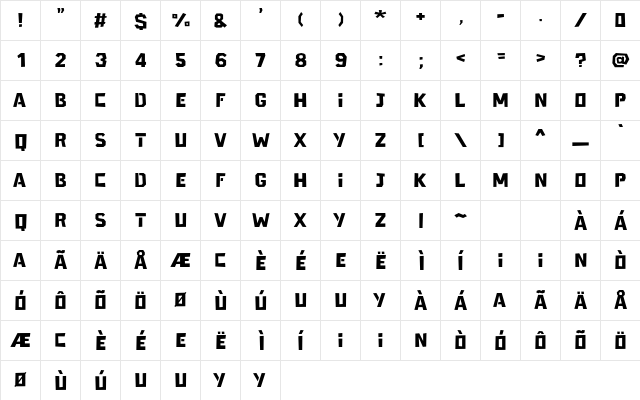
Manils Regular
| Foundry | Szymon Furjan |
| Designer | Szymon Furjan |
Design Context for Manils Typeface
Manils is a composed and adaptable typeface that performs quietly and consistently across a wide range of design contexts.